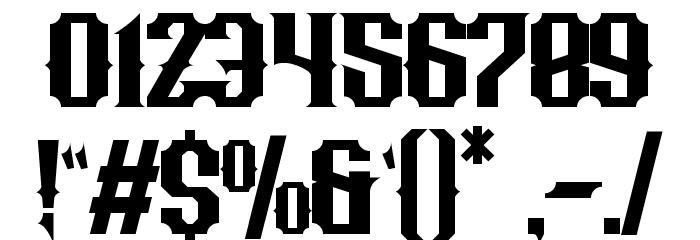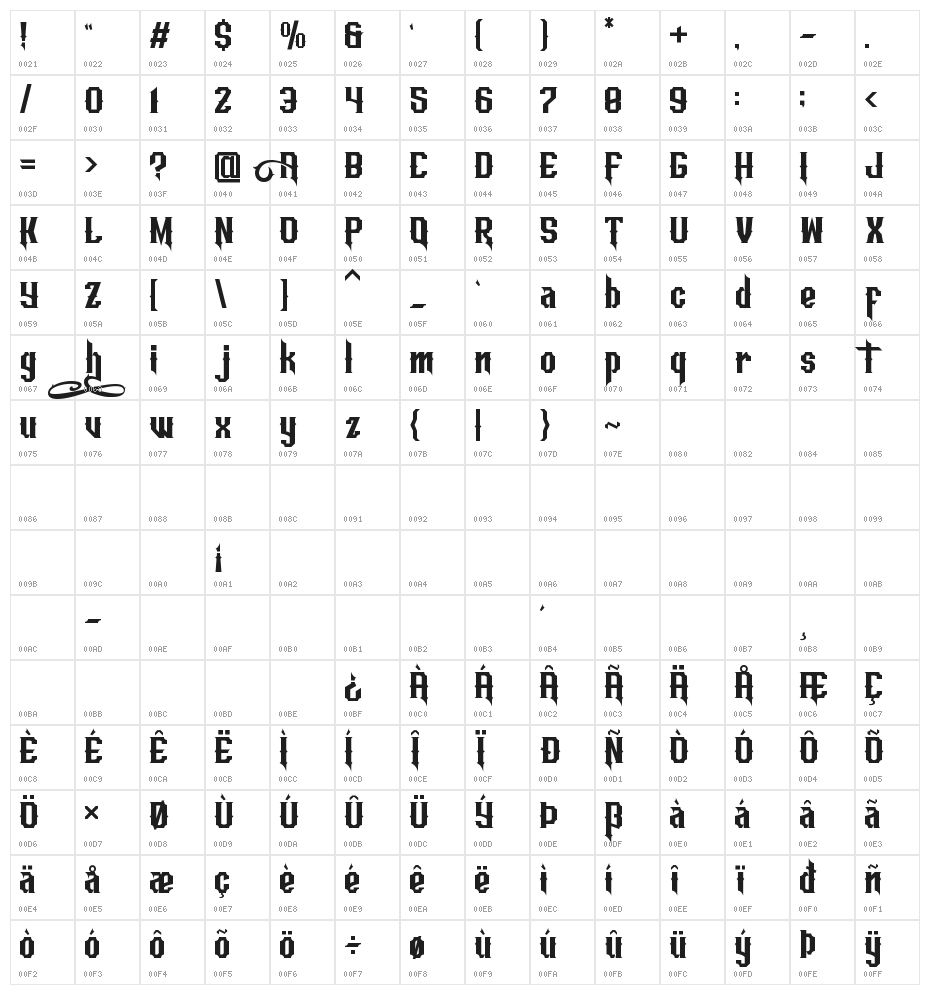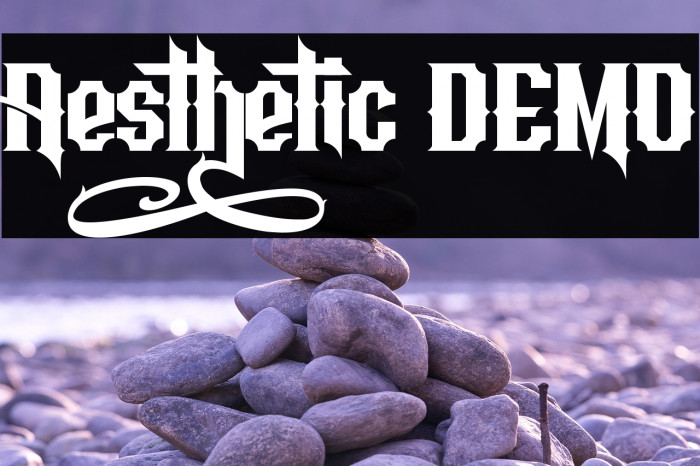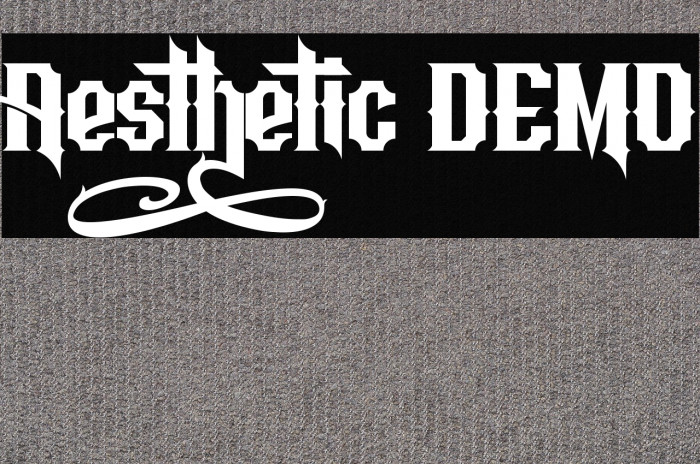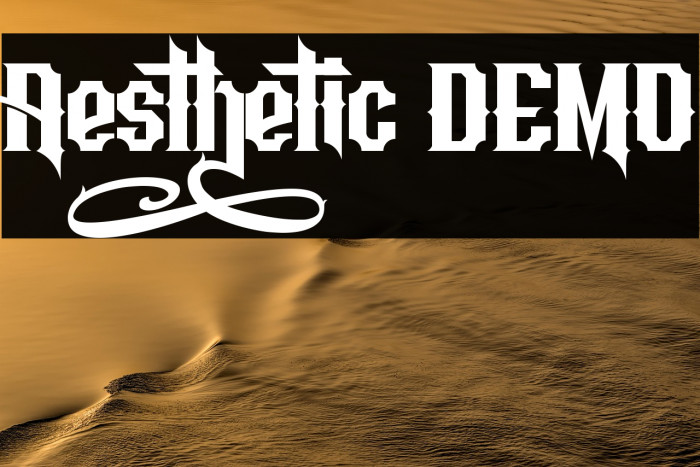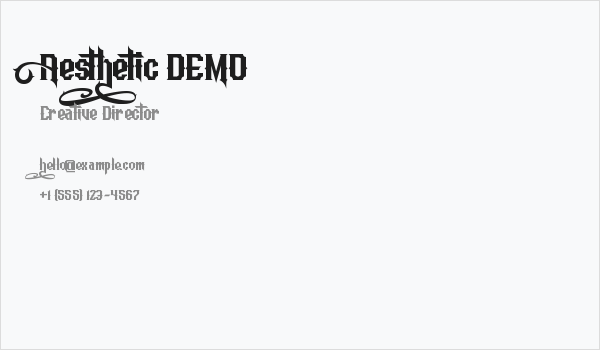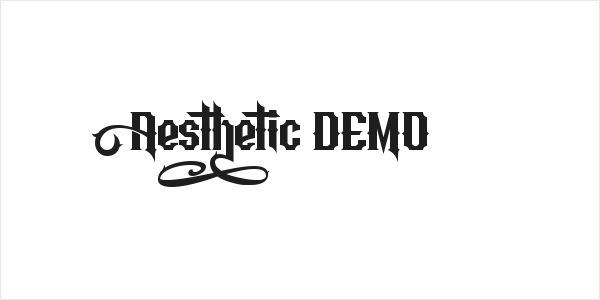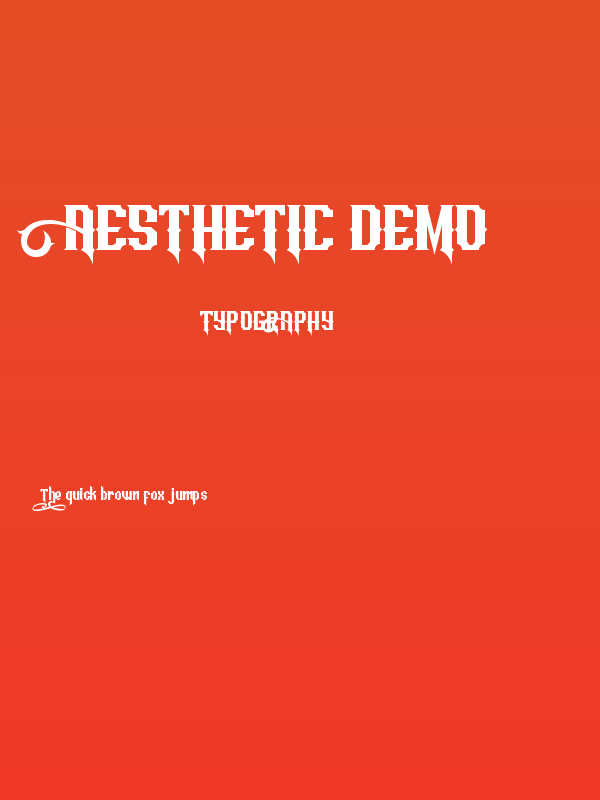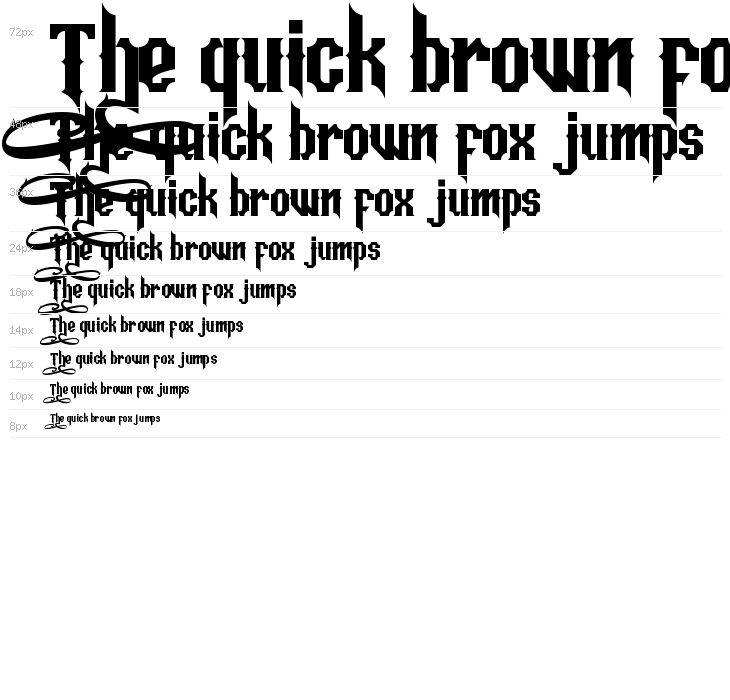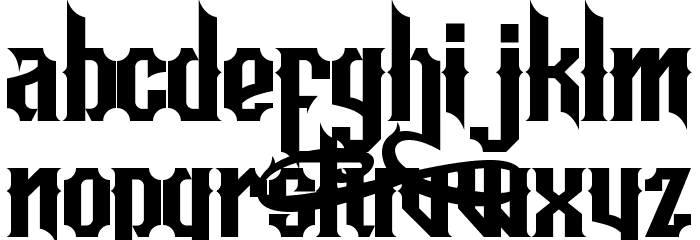
Aesthetic DEMO Font
Aesthetic DEMO Description
This font exhibits a bold and striking design, characterized by its sharp, angular edges and intricate detailing reminiscent of Gothic or medieval styles. The uppercase and lowercase letters maintain a consistent height, with a strong vertical emphasis and decorative serifs that add a dramatic flair. The numerals and special characters follow the same stylistic cues, ensuring a cohesive look across all glyphs. This font's unique aesthetic makes it particularly suitable for projects that require a touch of historical or fantasy elements, while its readability remains intact despite the ornate design.